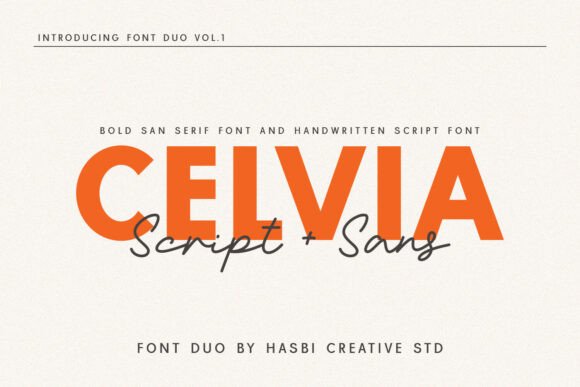
Celvia Font: Elevate Your Visuals with Sophistication
In the world of typography, fonts play a crucial role in defining the aesthetic and tone of a brand. A well-chosen font can elevate a brand’s visual identity, making it more recognizable and memorable. Introducing Celvia, a modern and elegant font duo that combines a soft handwritten script with a bold, clean sans serif. Designed for effortless pairing, Celvia offers beautiful contrast and harmony between its two styles, making it perfect for fashion branding, editorial layouts, social media, packaging, and logo design.
Key Features of Celvia Font
- Modern and Elegant Design: Celvia’s unique blend of a soft handwritten script and a bold, clean sans serif makes it a standout in the world of typography.
- Effortless Pairing: The font duo is designed to be paired seamlessly, offering beautiful contrast and harmony between its two styles.
- Versatile: Celvia is perfect for a wide range of applications, including fashion branding, editorial layouts, social media, packaging, and logo design.
- Easy to Read: The clean sans serif style ensures that text is easy to read, even at small sizes.
- Highly Customizable: Celvia offers a range of customization options, allowing designers to tailor the font to their specific needs.
Use Cases for Celvia Font
Celvia’s versatility makes it an excellent choice for a wide range of applications. Here are some use cases where Celvia truly shines:
- Fashion Branding: Celvia’s elegant and modern design makes it perfect for fashion brands looking to create a sophisticated visual identity.
- Editorial Layouts: The font duo’s contrasting styles make it ideal for editorial layouts, such as magazines, newspapers, and blogs.
- Social Media: Celvia’s clean and elegant design ensures that social media posts stand out and are easy to read.
- Packaging: The font duo’s versatility makes it suitable for packaging design, where a clear and concise message is essential.
- Logo Design: Celvia’s unique blend of styles makes it an excellent choice for logo design, where a memorable and recognizable mark is crucial.
Design Inspiration with Celvia Font
Celvia’s design inspiration comes from the world of fashion and editorial design. The font duo’s elegant and modern aesthetic makes it perfect for designers looking to create sophisticated visuals.
Whether youβre creating a chic fashion label, a wedding stationery suite, or a personal brand identity, Celvia gives you the flexibility and charm to elevate your visuals with sophistication.
Tips and Tricks for Using Celvia Font
Here are some tips and tricks for getting the most out of Celvia:
- Experiment with Pairings: Try pairing Celvia’s handwritten script with its clean sans serif style to create visually appealing contrasts.
- Use for Headings and Body Text: Use Celvia’s bold style for headings and its clean style for body text to create a clear visual hierarchy.
- Add Customization: Take advantage of Celvia’s customization options to tailor the font to your specific design needs.
Why Choose Celvia Font?
With so many fonts available, why choose Celvia? Here are some compelling reasons:
- Unique Design: Celvia’s blend of a soft handwritten script and a bold, clean sans serif makes it a standout in the world of typography.
- Versatility: The font duo is perfect for a wide range of applications, from fashion branding to editorial layouts.
- Elegant and Modern: Celvia’s design is both elegant and modern, making it perfect for designers looking to create sophisticated visuals.
In conclusion, Celvia is a modern and elegant font duo that offers a unique blend of a soft handwritten script and a bold, clean sans serif. With its effortless pairing, versatility, and elegant design, Celvia is perfect for designers looking to elevate their visuals with sophistication.
Whether youβre creating a chic fashion label, a wedding stationery suite, or a personal brand identity, Celvia gives you the flexibility and charm to create stunning visuals that leave a lasting impression.